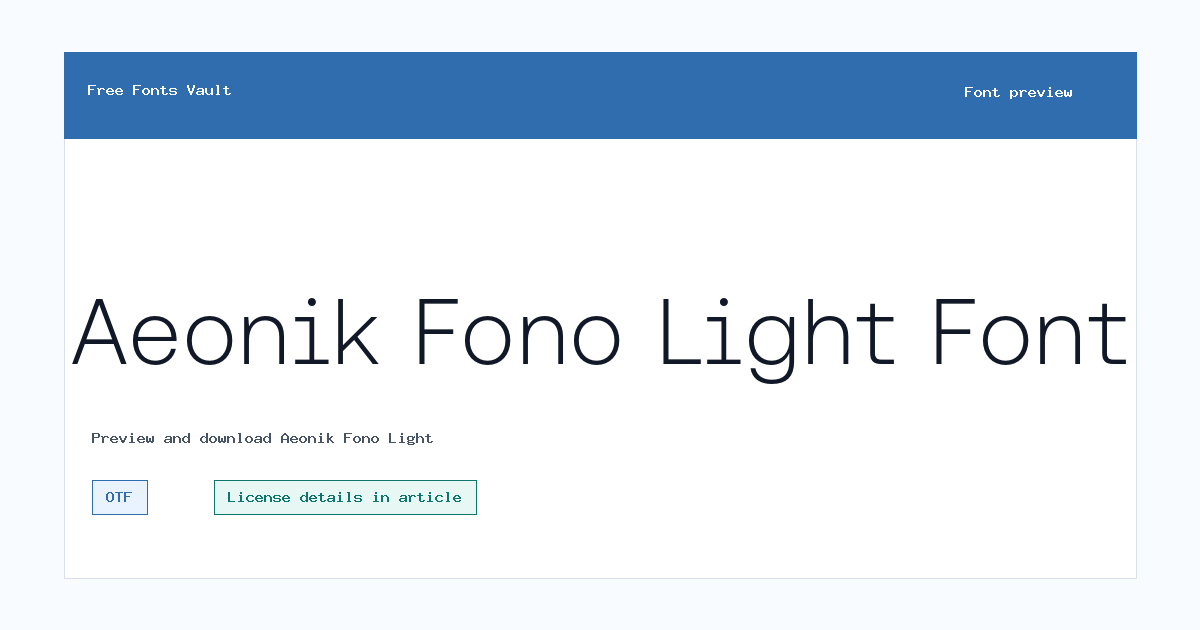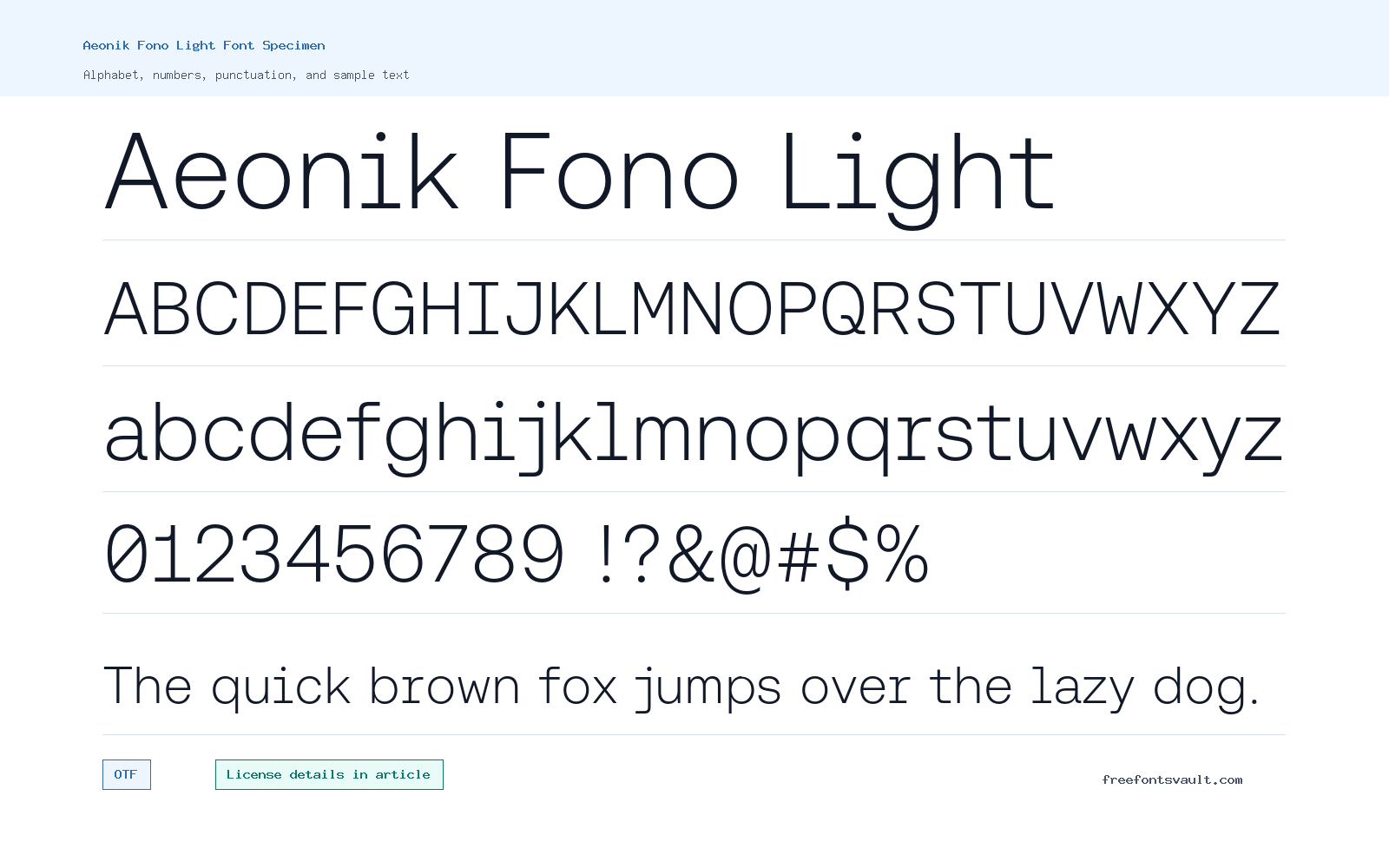
Aeonik Fono Light
- Designer Mark Bloom
- Foundry CoType Foundry
Aeonik Fono Light is a light-weight OTF font option for visitors who want a clean, lighter setting to test in headings, labels, and short interface-style text.
About Aeonik Fono Light
Aeonik Fono Light comes in an OpenType font file with a normal style and a 300 weight. That makes it a lighter cut rather than a heavy display face, so it is best judged in the preview at the exact size you plan to use. Try a short headline, a menu label, and a few mixed-case words to see how the lighter strokes hold up.
Because only one Light variant is listed, it works best when you need a restrained single-style treatment. Use it for short text blocks, brand mockups, poster details, captions, or web interface samples where a lighter weight feels appropriate. For long paragraphs, test spacing and contrast carefully, especially on small screens or low-contrast backgrounds.
For best results, compare Aeonik Fono Light against the real environment where it will appear. A light monoline style can feel crisp in a spacious heading, but the same cut may look too fine inside small cards, dense navigation, or low-contrast UI areas. Try short labels, a product name, a button, and a longer sentence before choosing it for a layout.
If the preview looks too delicate, adjust size and contrast before adding effects. Light fonts often work better with clean backgrounds, generous line height, and a stronger companion face for body copy.
- Normal style with a 300 light weight
- Best used where thin strokes have enough contrast and room
- Short headings, labels, and clean title treatments
- Mockups, interface text tests, and minimal layout accents
- Minimal UI mockups, refined labels, and calm editorial title treatments
Aeonik Fono Light is credited to Mark Bloom, with CoType Foundry listed as the foundry.
What weight is Aeonik Fono Light?
It is listed as a 300 weight, which is commonly treated as a light weight.